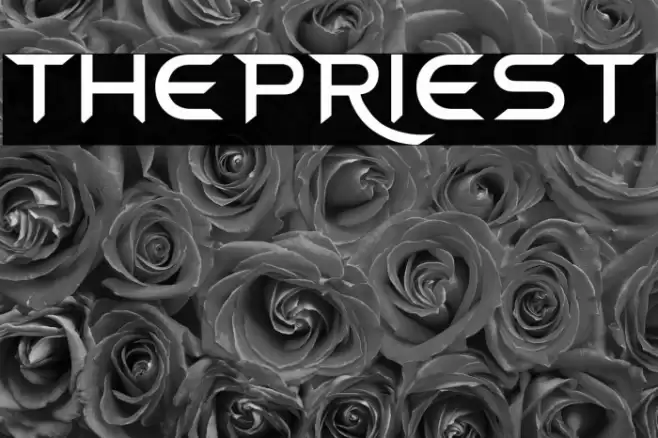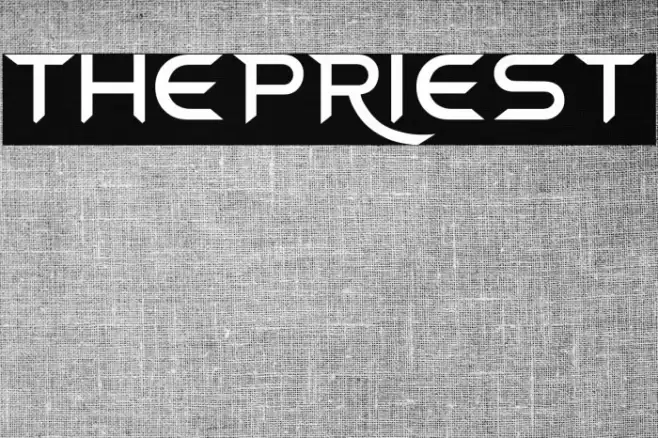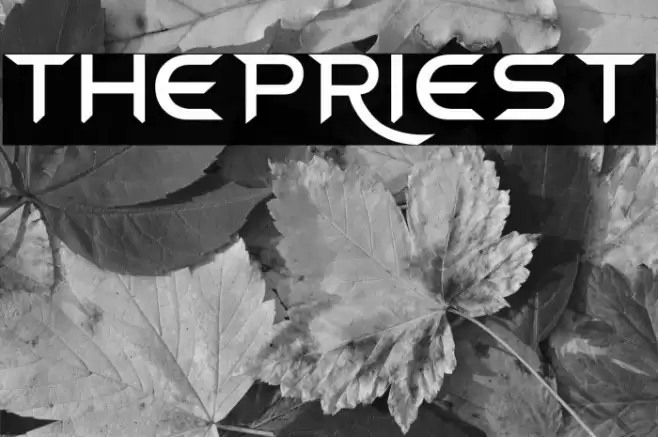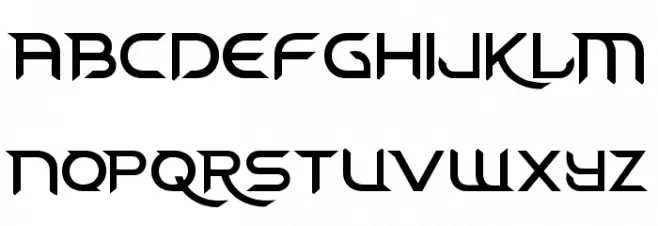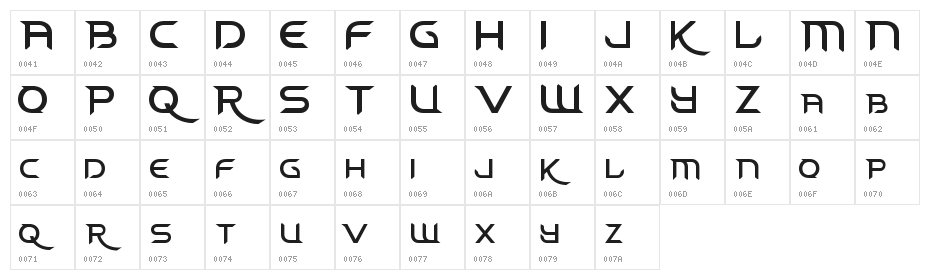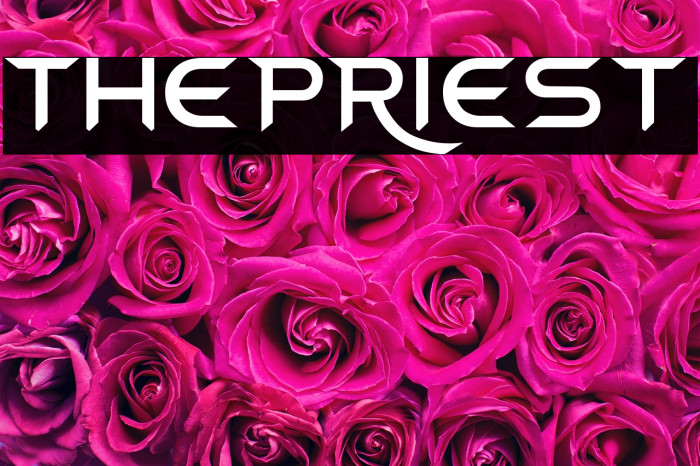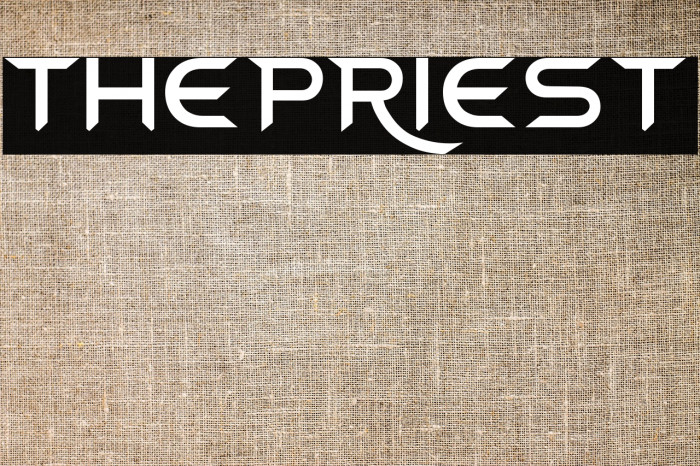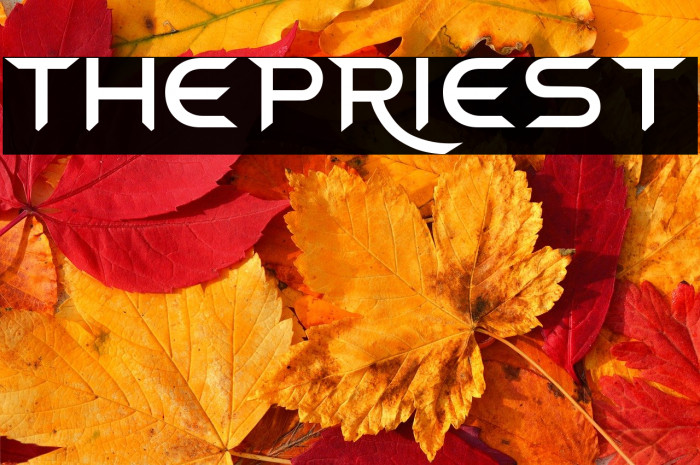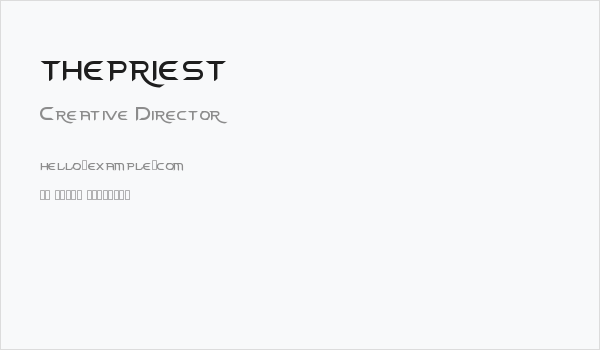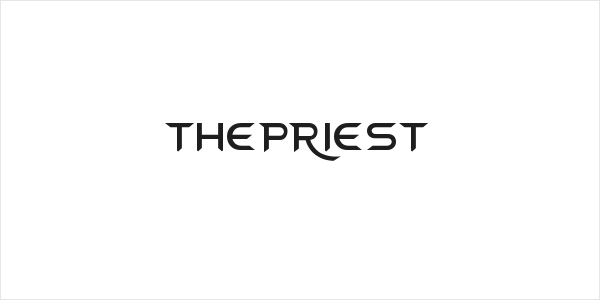
thepriest Font
thepriest Description
This font features a unique and futuristic design with angular, sharp edges and a distinct geometric style. The characters are bold and have a strong presence, making them ideal for attention-grabbing headlines or logos. The uppercase and lowercase letters maintain a consistent style, with some characters incorporating extended strokes or tails that add to the font's dynamic appearance. The numbers and special characters follow the same aesthetic, ensuring a cohesive look across all text elements. The font's design is both modern and slightly aggressive, suitable for projects that require a bold statement.
A futuristic, angular font with bold geometric shapes and sharp edges from Uncategorized fonts.
- Proposed Projects: Ideal for sci-fi themed designs, video game titles, technology branding, and edgy posters.